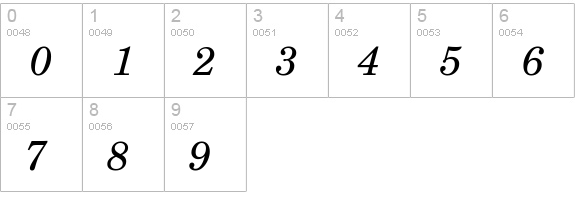
Century-PS-Italic Font Details
Century-PS-Italic is a distinctive, italic variant in the Century typeface family \xE2\x80\x94 well suited to design and typography projects.
Century-PS-Italic font is a sophisticated and elegant typeface that exudes a sense of timeless beauty and classic charm. Its sleek and stylish design makes it perfect for adding a touch of class to any project, whether it's a wedding invitation, a business card, or a website design. The italicized letters give this font a sense of movement and fluidity, making it ideal for conveying a sense of elegance and sophistication. And the best part? Century-PS-Italic font is completely free to download at FontsMarket.com. So you can add this stunning font to your collection without having to spend a penny. Don't miss out on the opportunity to enhance your designs with this beautiful and versatile typeface. Download Century-PS-Italic font today and elevate your projects to a whole new level of sophistication and style.